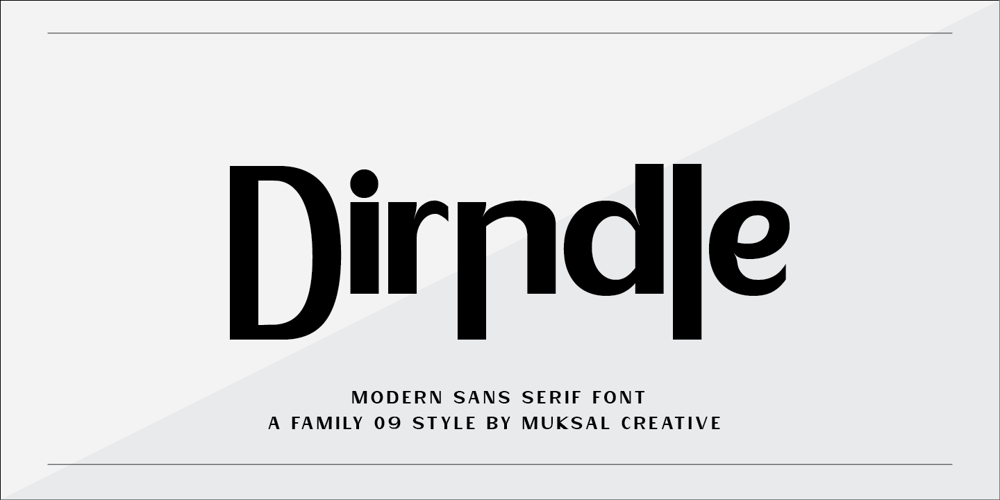
Dirndle Font Family was designed by Muksalmina and published by Muksal Creatives. Dirndle contains 9 styles and family package options. Dirndle is a unique and modern family of sans-serif fonts. Feragie has 9 families, starting from the small thin to the largest black. This typeface is versatile and can be used successfully in magazines, posters, branding, websites,